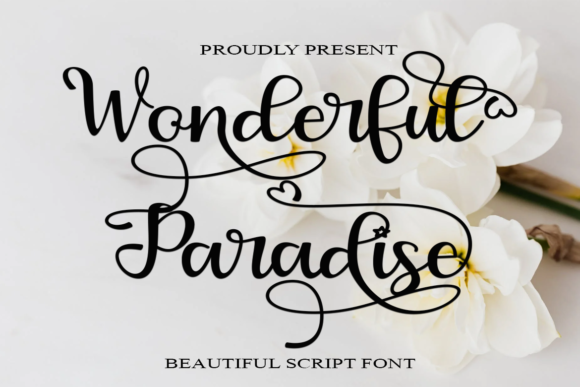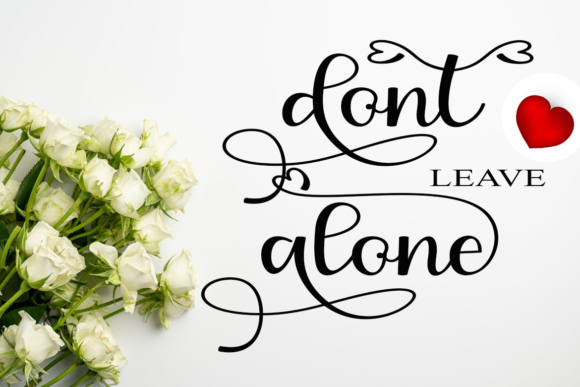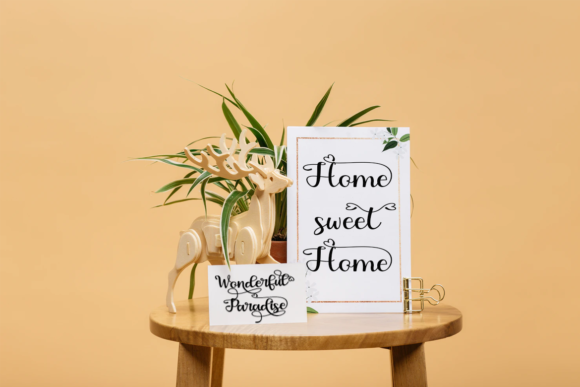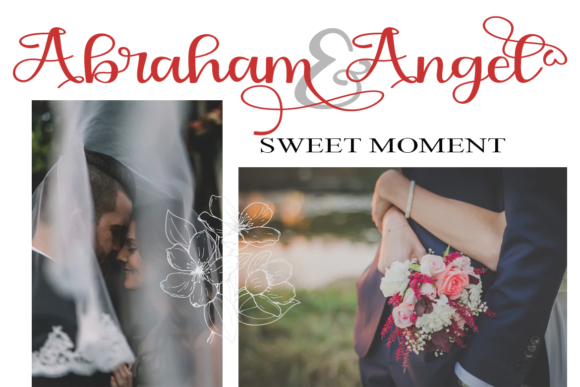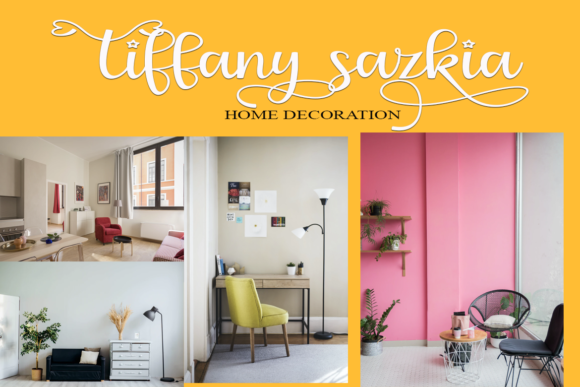
Wonderful Paradise Font
About Wonderful Paradise Font
Wonderful Paradise is a unique and elegant handwritten font. It looks beautiful on a variety of designs requiring a personalized style, such as wedding invitations, thank you cards, weddings, greeting cards, logos and so on.